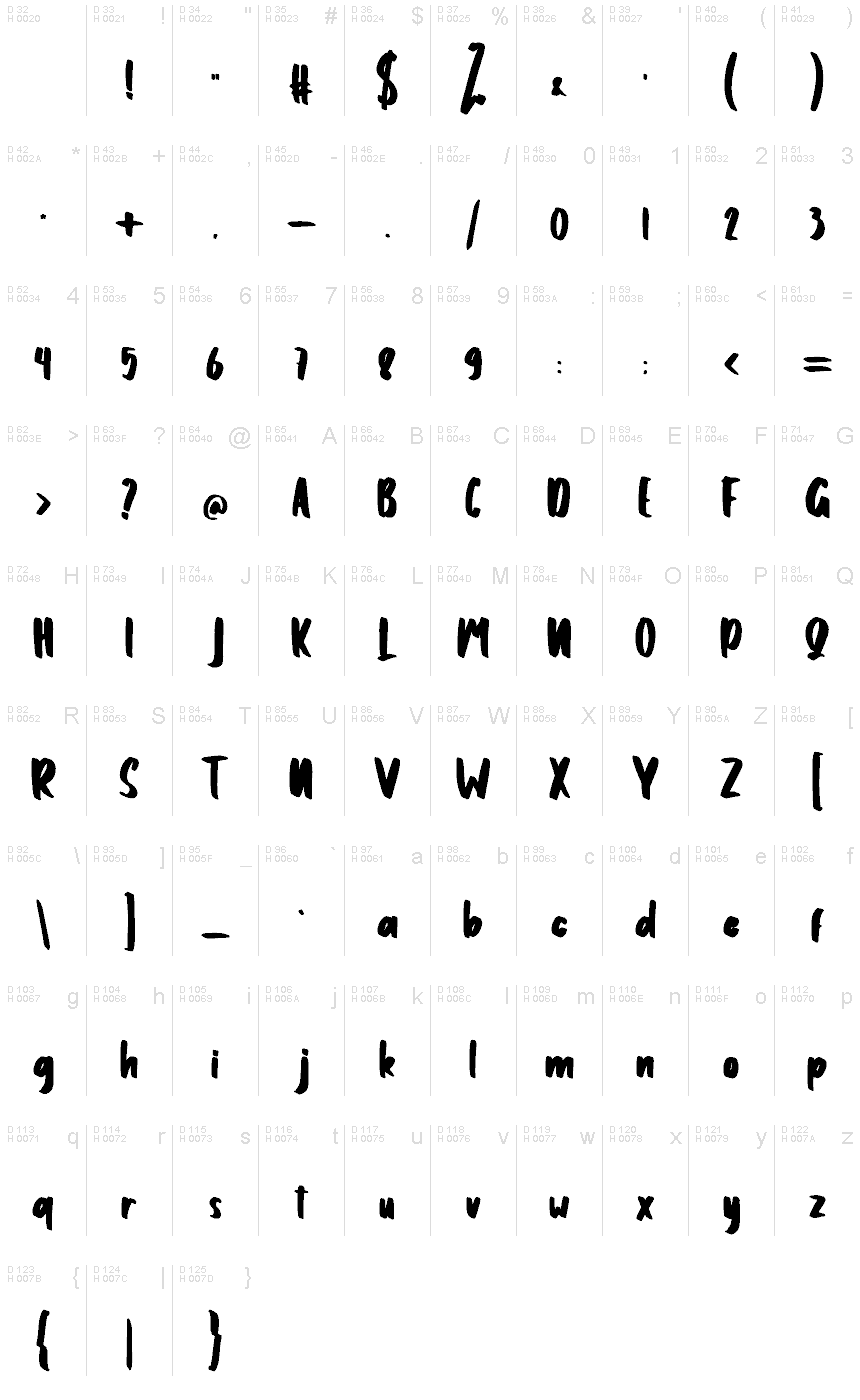
Almeira
Almeira font by Skiiller Studio is a bold brush free font characterized by hand-drawn organic shapes. It combines a casual vibe with an artistic flair and modern aesthetic. Each letter has irregular lines which give them a uniqueness that stands out in any context and a human, joyous feel.
The font works great in social media posts, Instagram bios, TikTok videos, Pinterest banners; food packaging, beauty products packaging; literally any van wrapping; websites related to art and painting. It can also be used for shop signs or in movie titles!